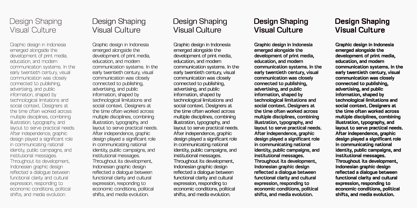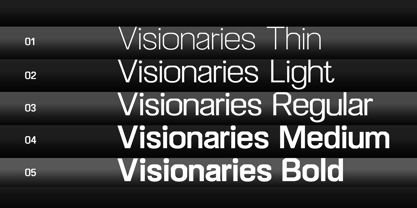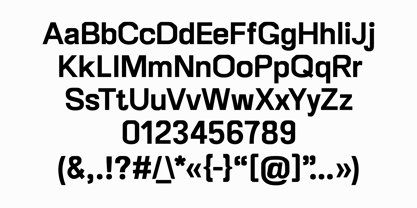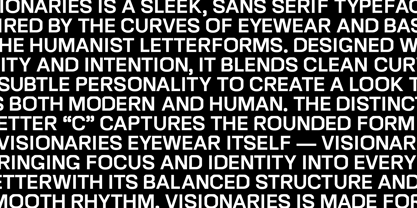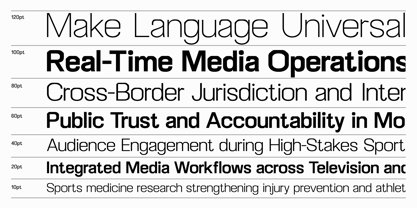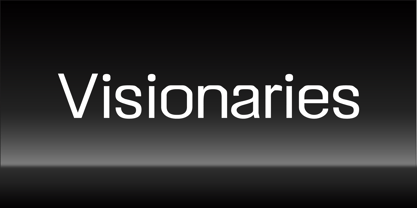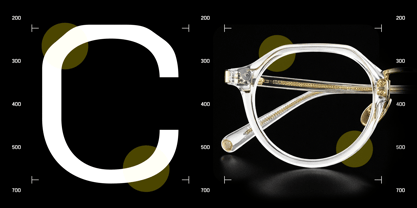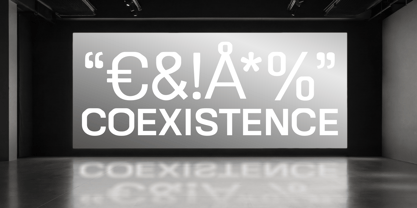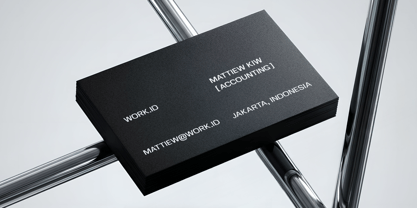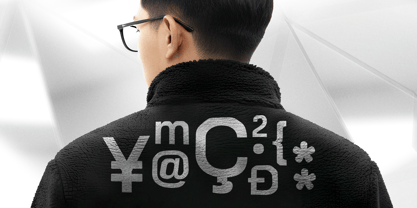
Visionaries
by Initiatype
The Visionaries Font Family was designed by Ferry Acviansyah and published by Initiatype. Visionaries contains 5 styles and family package options. More about this family
Visionaries is a sleek, sans serif typeface shaped by the curves of eyewear and based on the Humanist letterforms. Designed with clarity and intention, it blends clean curves with subtle personality to create a look that feels both modern and human. The distinctive of letter “C” captures the rounded form of the Visionaries eyewear itself. Visionaries bringing focus and identity into every letter. With its balanced structure and smooth rhythm, Visionaries is made for brands and stories that want to feel sharp, thoughtful, and coexistence.
Designers: Ferry Acviansyah
Foundry: Initiatype